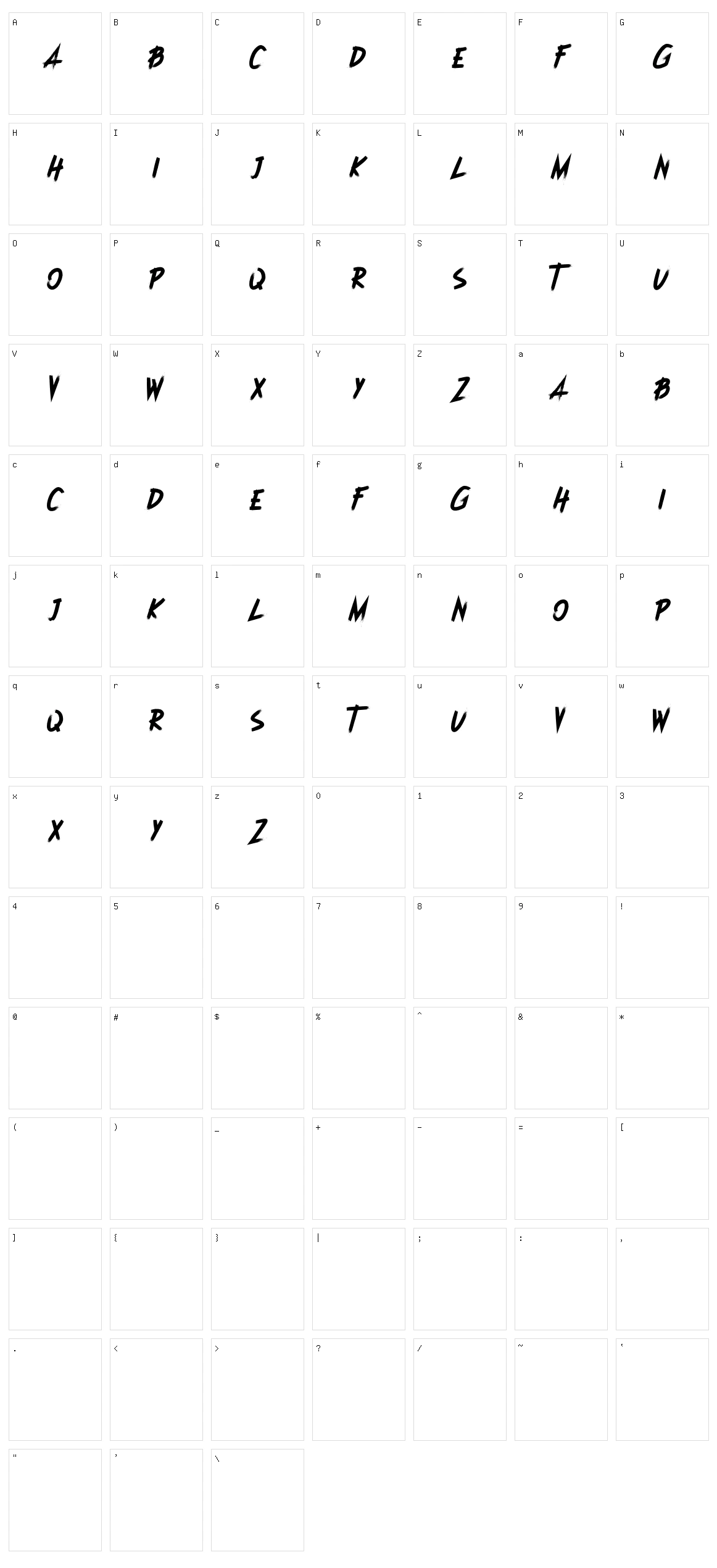
Dioxida font inspired by a soft brush, this font gives the impression of a man, brave, scary, dashing, horror and elegant, this font is suitable for display, poster titles, book cover titles, movie titles, logos, merchandise and more.